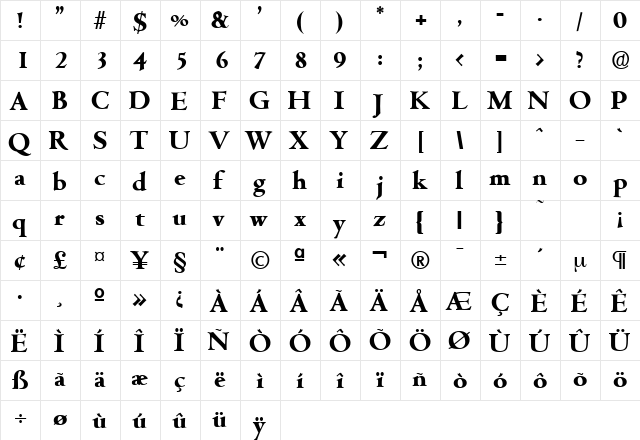
Cambridge-Serial-ExtraBold Regular
Design Context for Cambridge-Serial-ExtraBold Typeface
Cambridge-Serial-ExtraBold takes a measured approach to typography — its balanced proportions and neutral character make it a reliable workhorse for both digital and print work. Its bold stroke weight gives it real presence on the page.